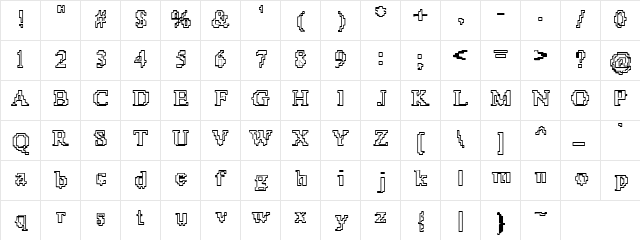
X51 Outline Regular
Design Context for X51 Outline Typeface
X51 Outline brings ornamental detail and strong personality to headlines and identities, where visual impact matters more than quiet functionality.
Font Pairing: Pair with a clean neutral sans-serif for body copy to let X51 Outline's character lead without overwhelming the composition.
Pro Tip: Use X51 Outline exclusively at display sizes — it was designed to be seen, not read at length. Let a neutral companion handle body copy.